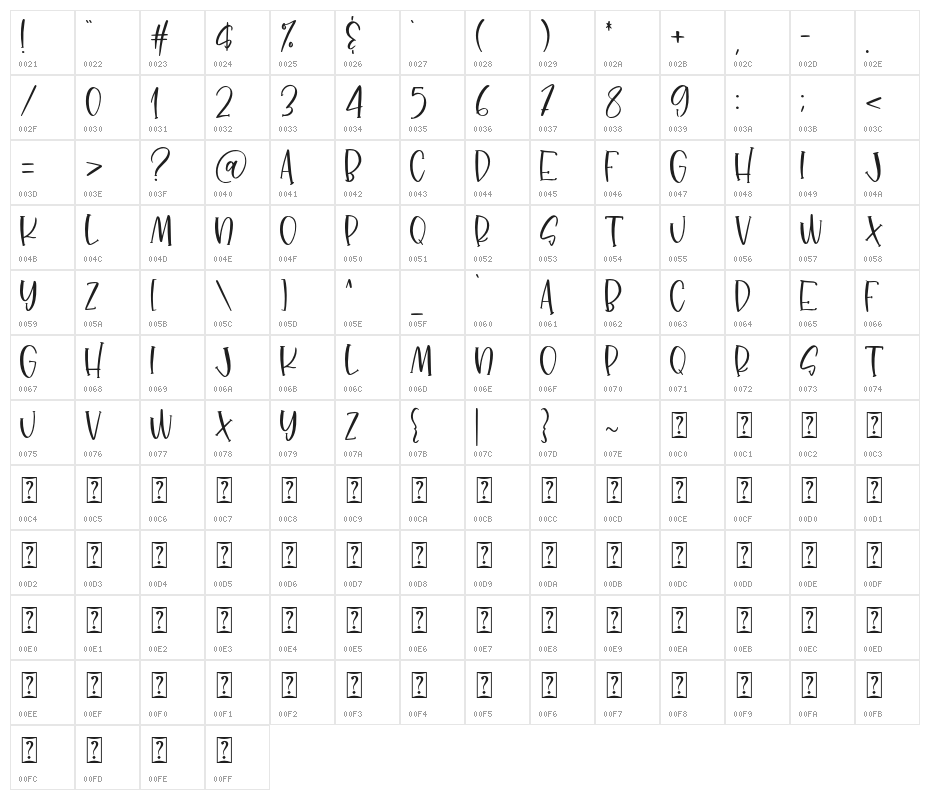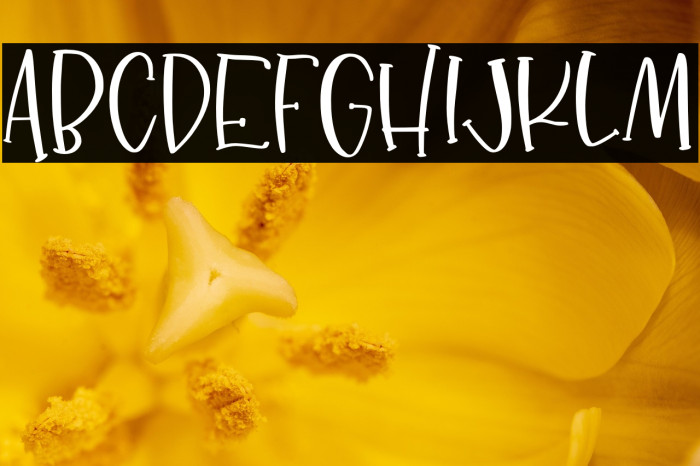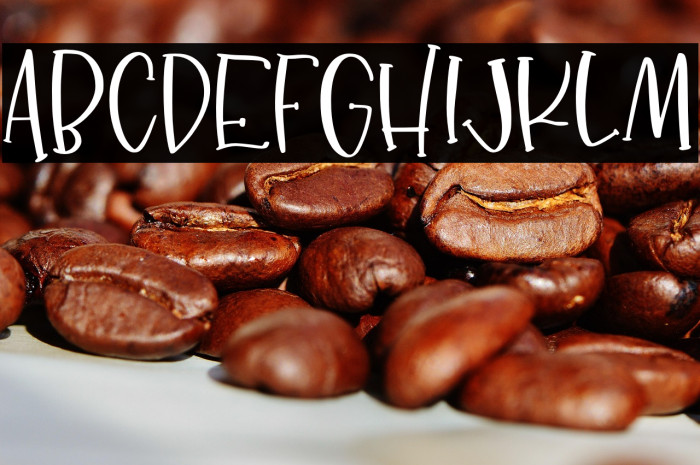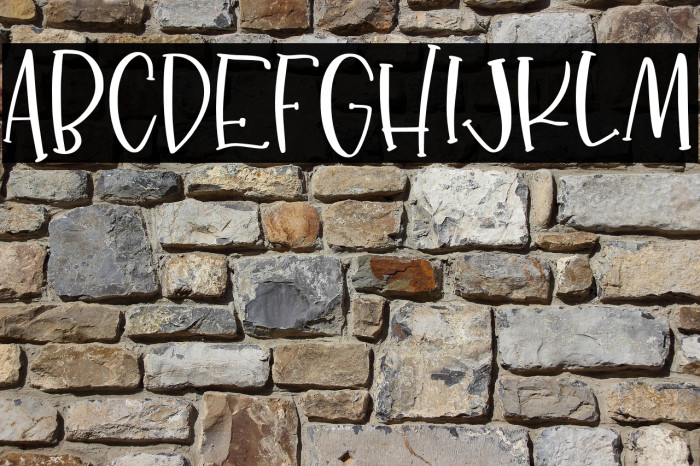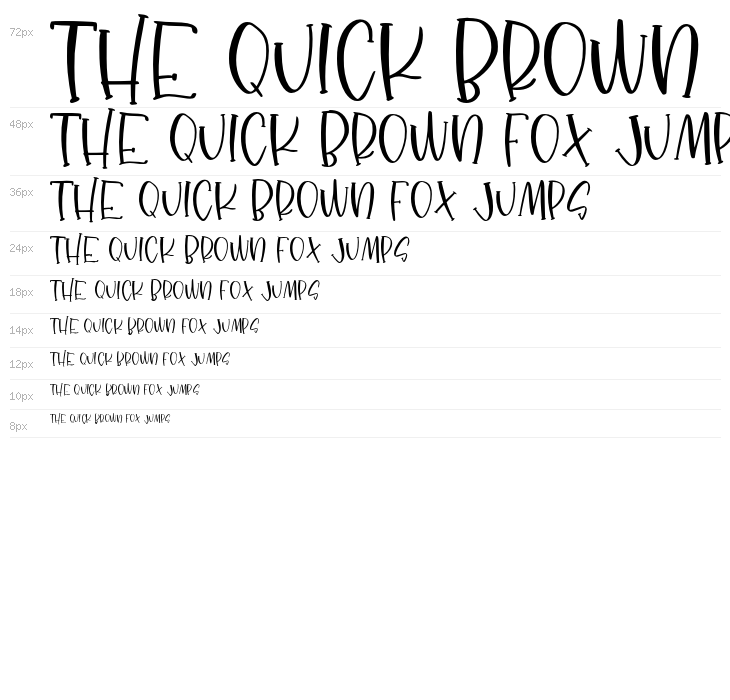
dancingmoonslab Font
dancingmoonslab Description
This font features a playful and energetic handwritten style, characterized by its smooth, flowing curves and slightly irregular letterforms. The uppercase and lowercase letters maintain a consistent rhythm, while the numbers and special characters complement the overall aesthetic with their whimsical design. The strokes are bold and confident, with a medium contrast that adds to the font's lively appearance. Its informal and friendly vibe makes it suitable for creative and casual projects, where a touch of personality is desired.
| Overall Style | Playful, Informal |
| Use Case | Headlines, Logos, Casual Text |
| Proposed Projects | Ideal for greeting cards, children's books, playful branding, and social media graphics. |